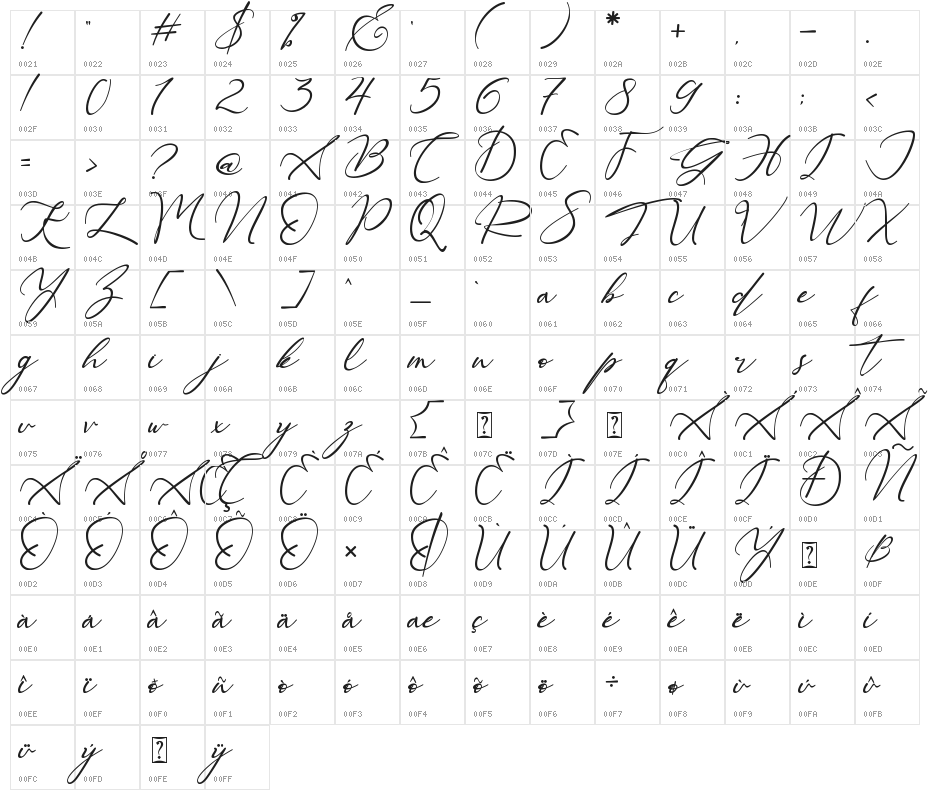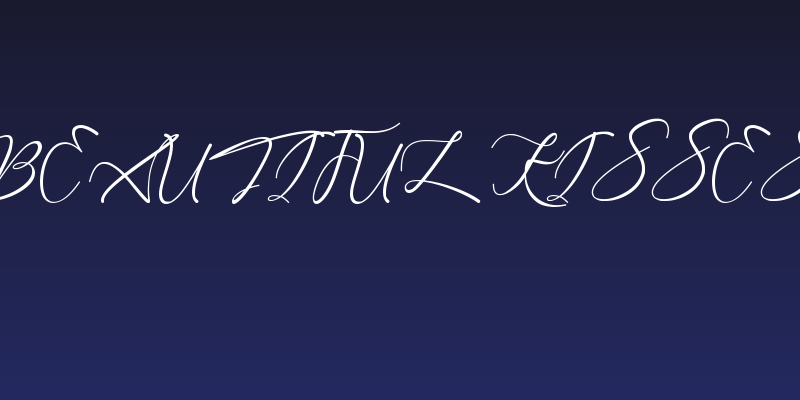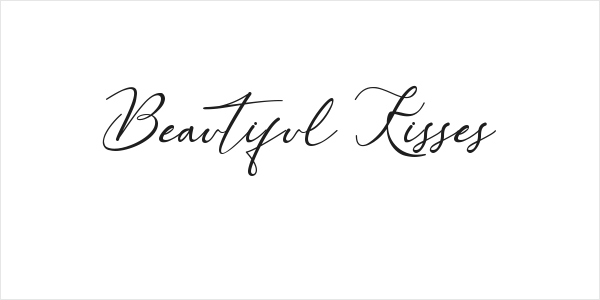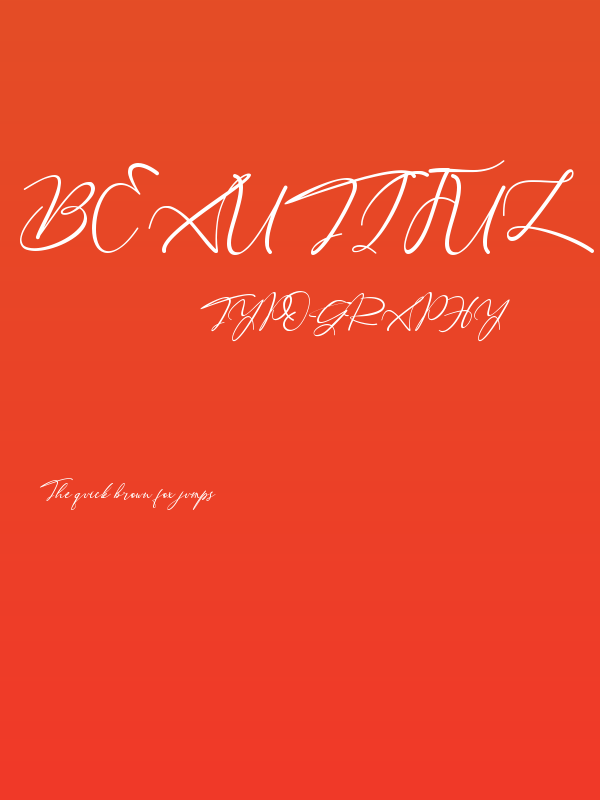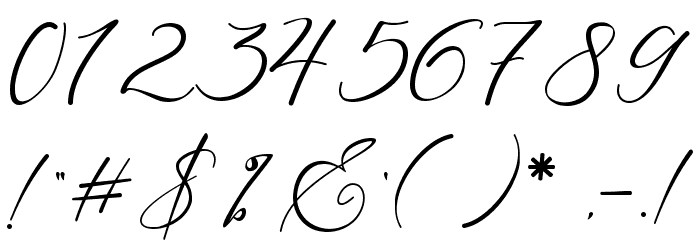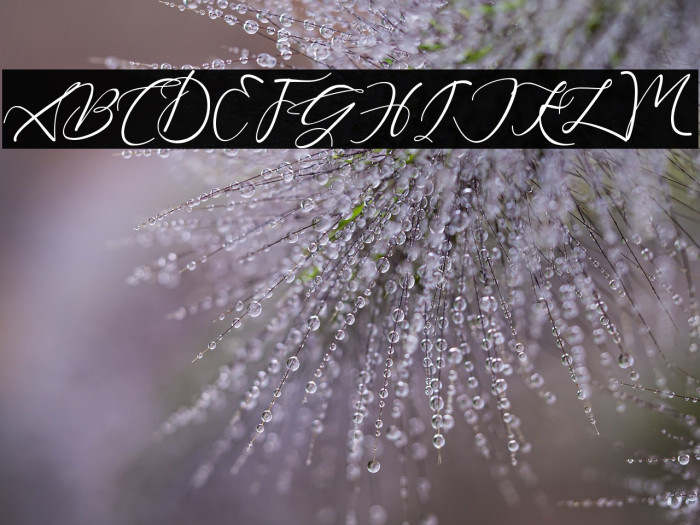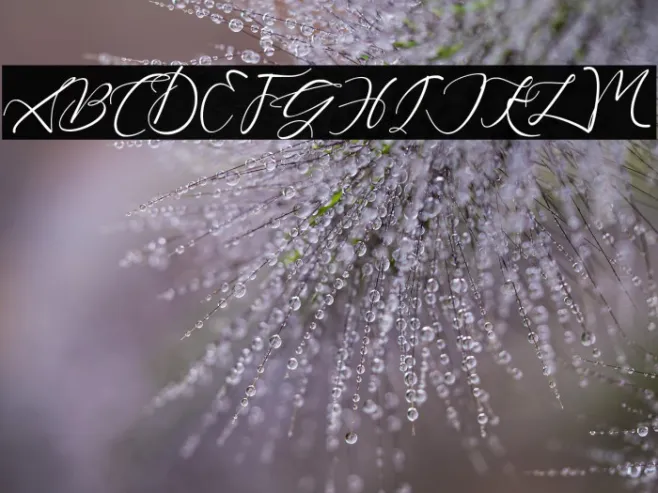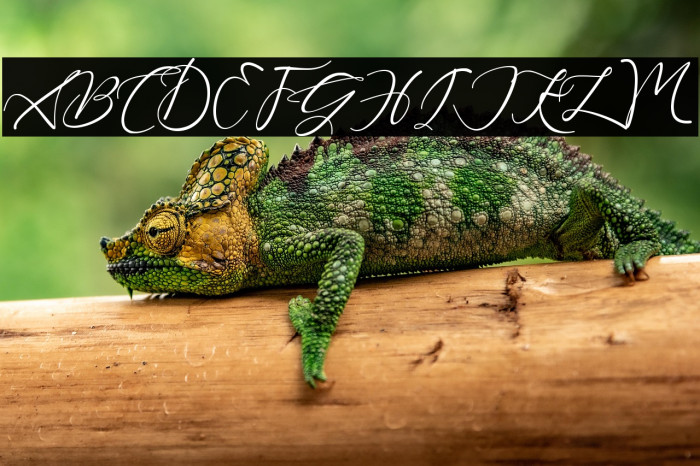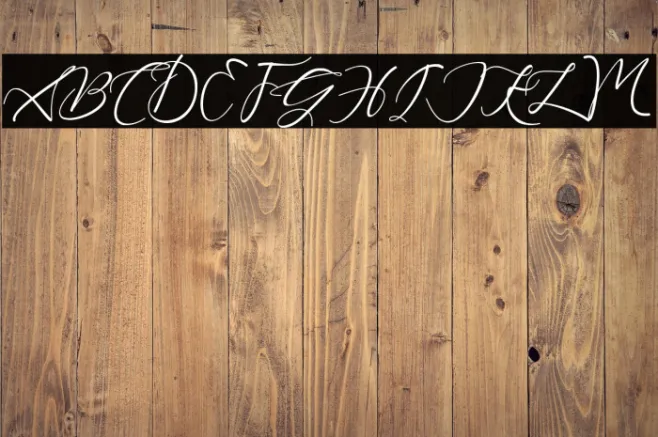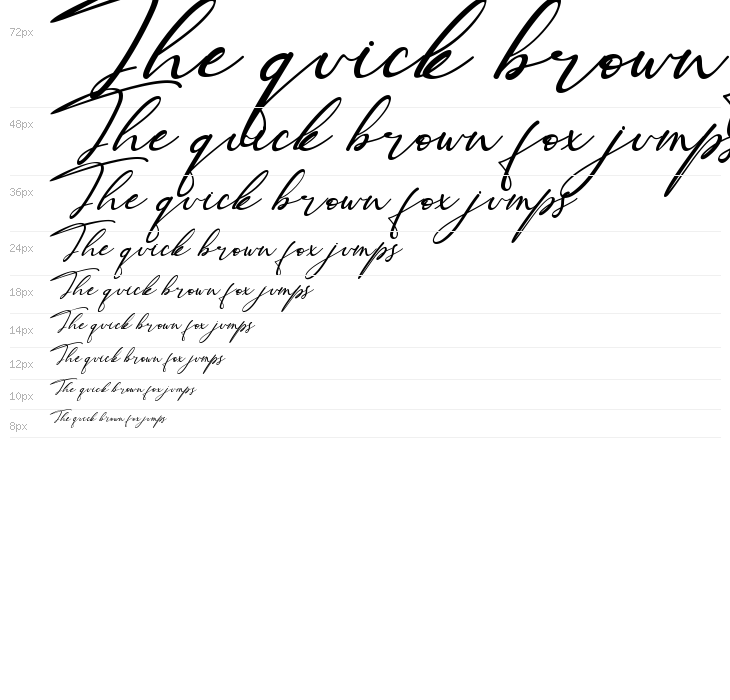
Beautiful Kisses Font
Beautiful Kisses Description
This font exudes elegance and sophistication with its flowing, cursive style. The letters are interconnected, creating a seamless and fluid appearance. The uppercase characters are slightly more ornate, with graceful loops and swirls that add a touch of flair. The lowercase letters maintain a consistent rhythm, enhancing readability while preserving the artistic quality. Numbers and special characters are crafted with the same attention to detail, ensuring a cohesive look across all text elements. The overall design is reminiscent of classic calligraphy, making it suitable for projects that require a personal and refined touch.
| Proposed Projects | Ideal for wedding invitations, greeting cards, personal branding, and elegant packaging. |